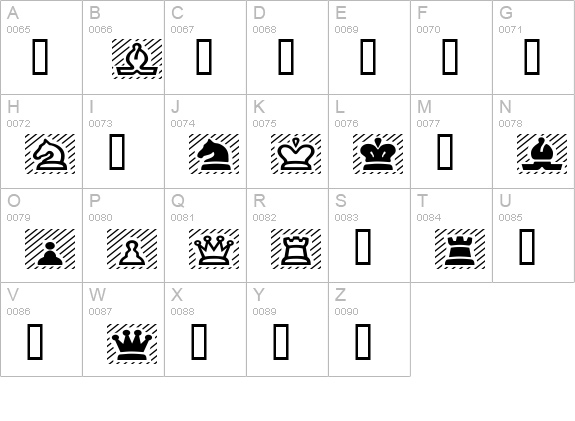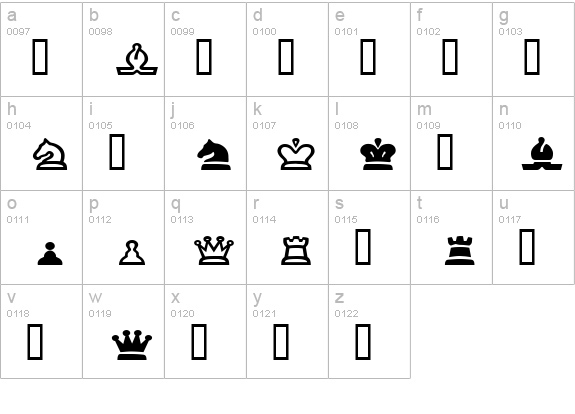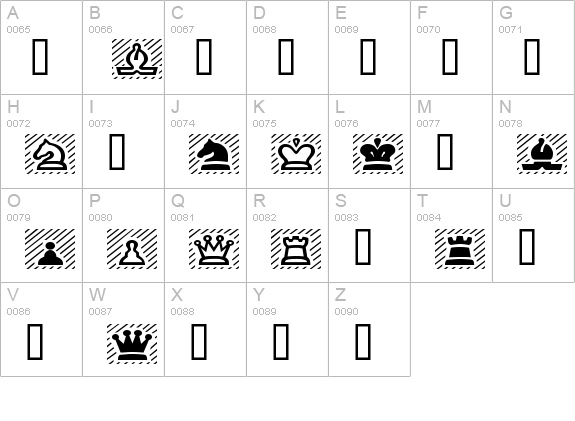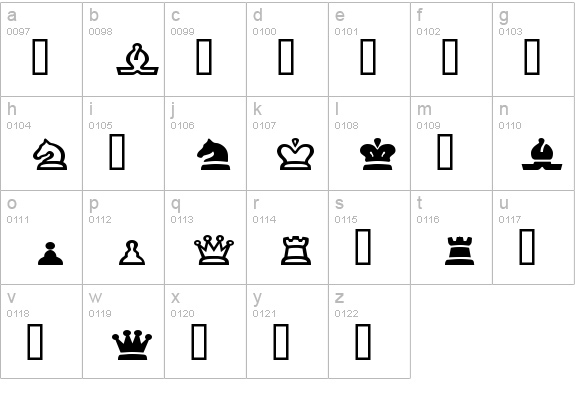
ChessPiece Wide Font Details
ChessPiece Wide is a distinctive, extended-width variant in the ChessPiece typeface family \xE2\x80\x94 well suited to design and typography projects.
ChessPiece Wide font is a captivating and elegant typeface perfect for adding a touch of sophistication to your designs. With its bold and commanding presence, this font is ideal for creating eye-catching headlines, logos, and other graphic elements. The sleek lines and intricate details of ChessPiece Wide font make it a versatile choice for a wide range of design projects. Best of all, ChessPiece Wide font is available for free download at FontsMarket.com. Whether you're a seasoned designer looking to enhance your portfolio or a newcomer eager to explore the world of typography, this font is a valuable addition to your collection. Download ChessPiece Wide font today and elevate your designs with its timeless appeal and distinctive style.